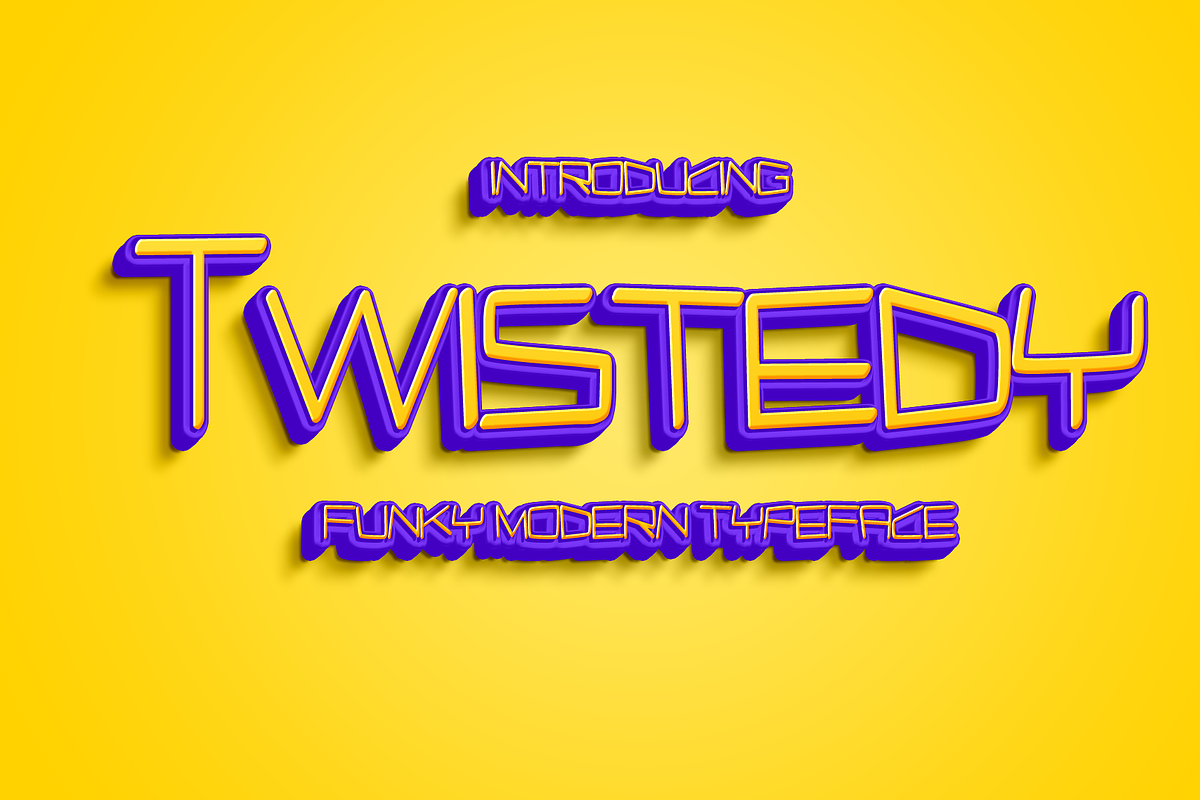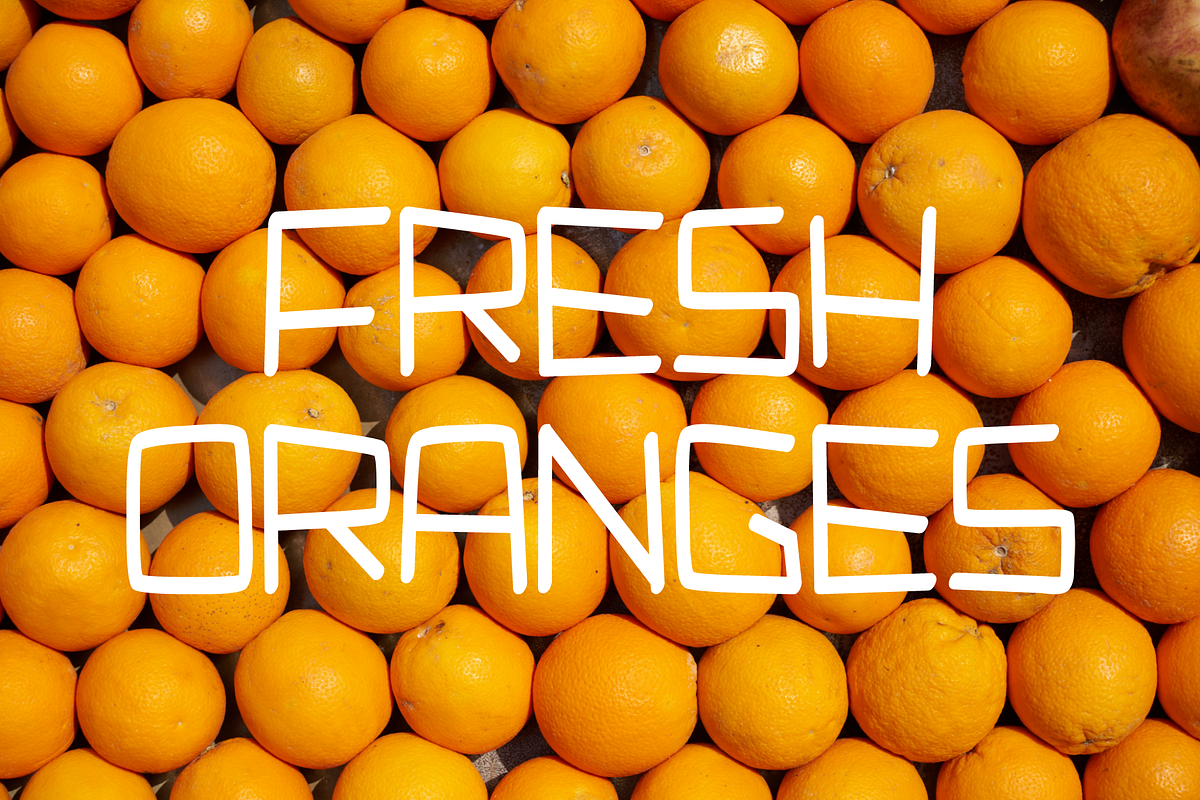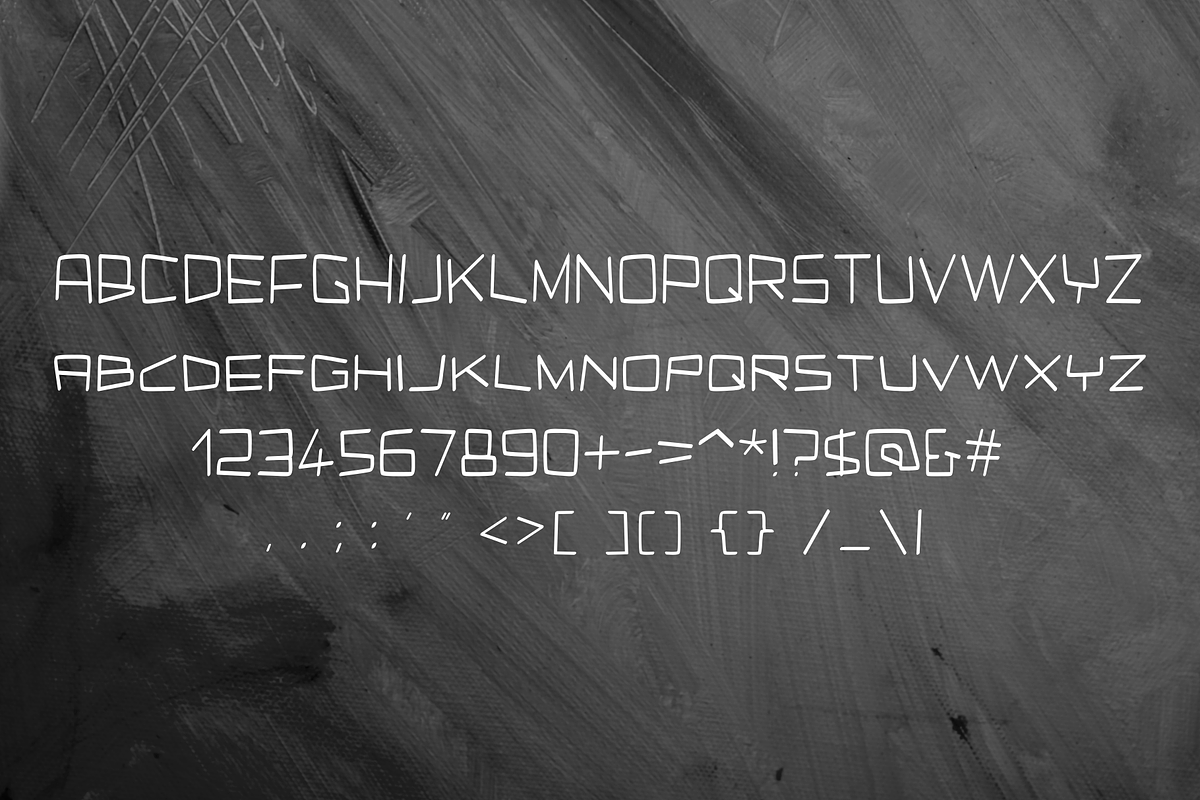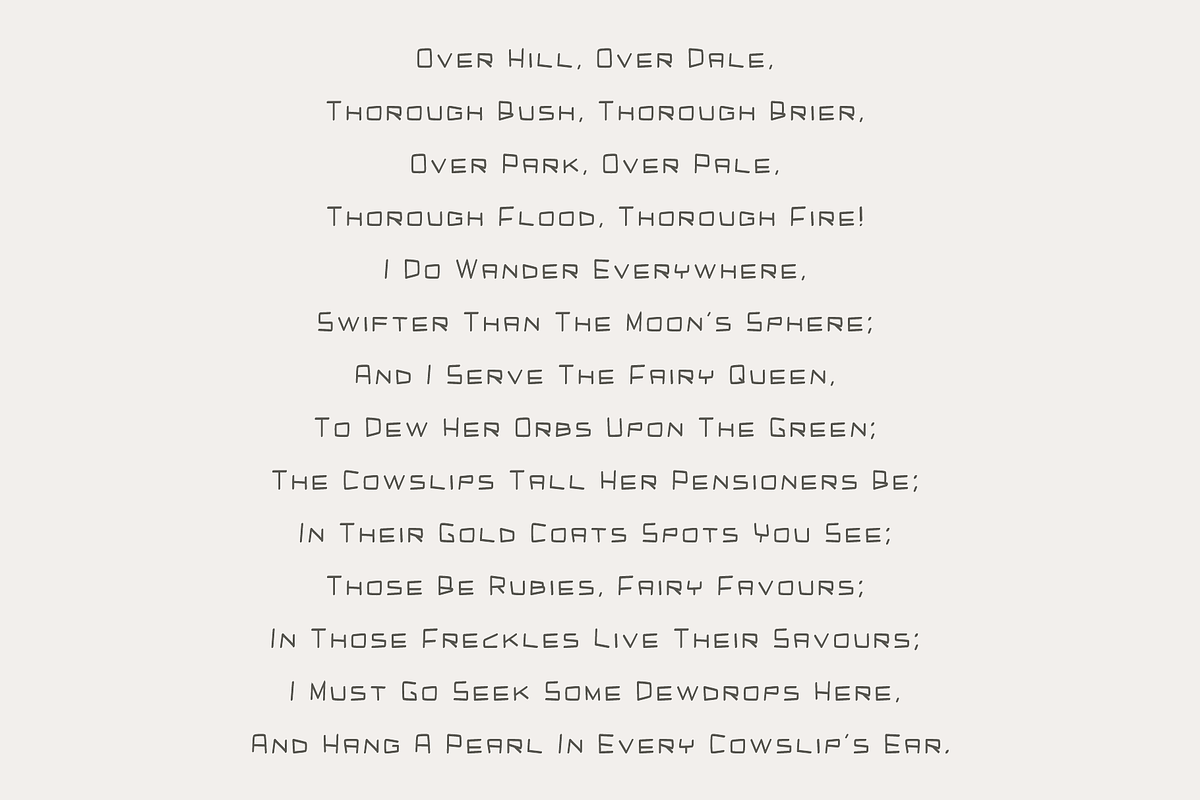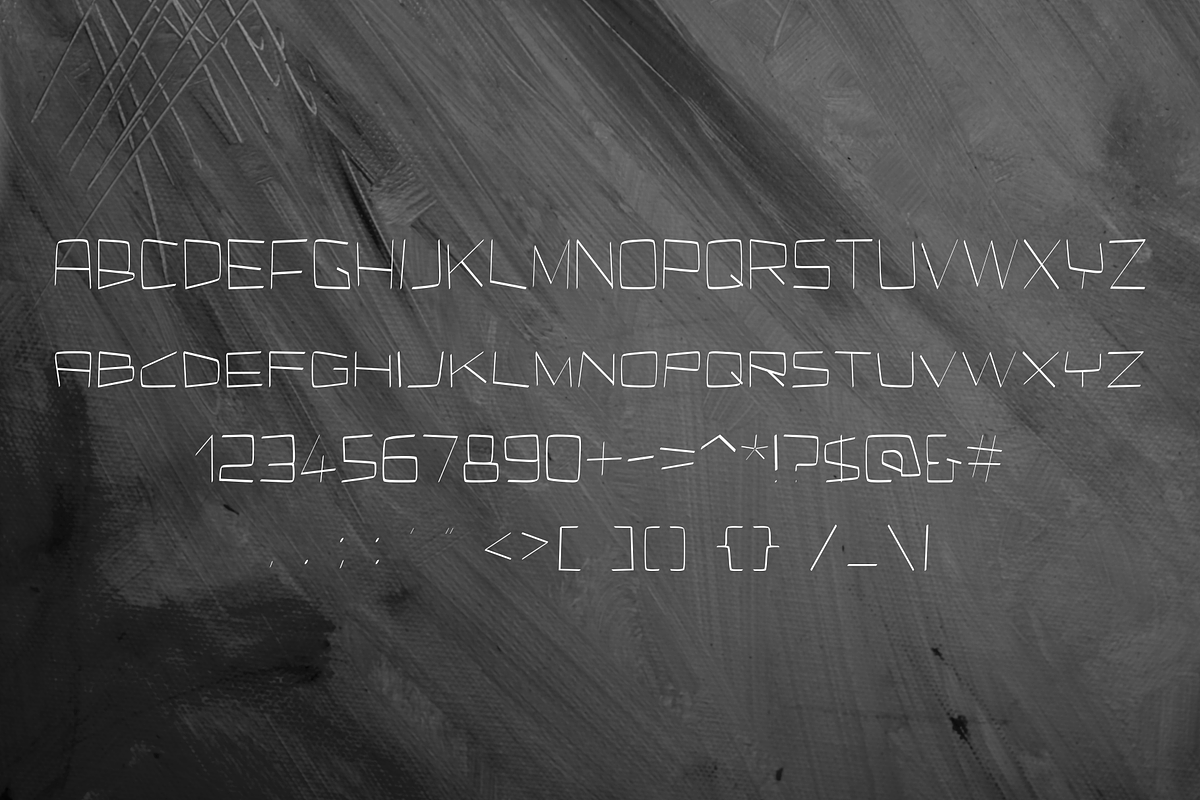
Twistedy - Modern Typeface
Twistedy - a clean, elegant, modern typeface that you can use in packaging or branding, creating beautiful logos, headlines, quotes, and any other printed matter. I hope that the font will become your excellent assistant in the design of products.
- Consistency
- Well organized
- Easy to use